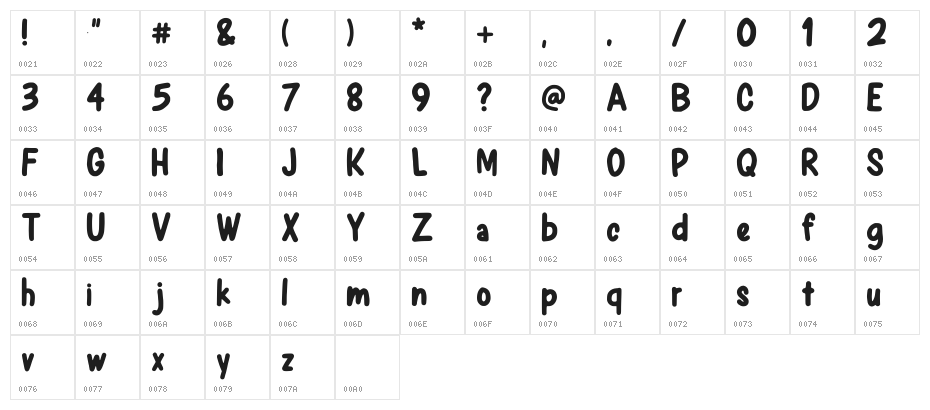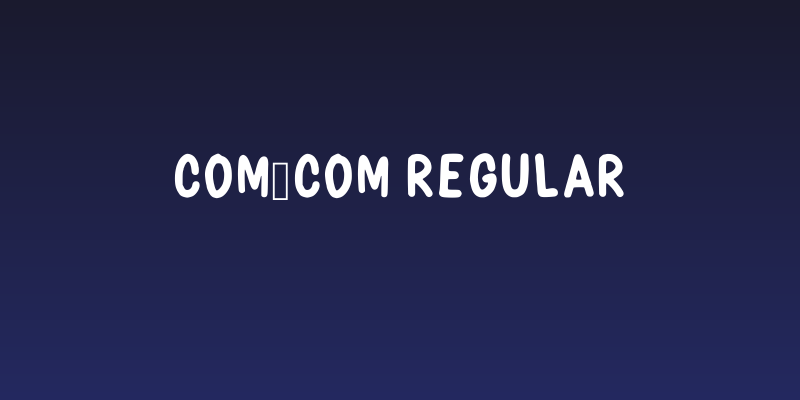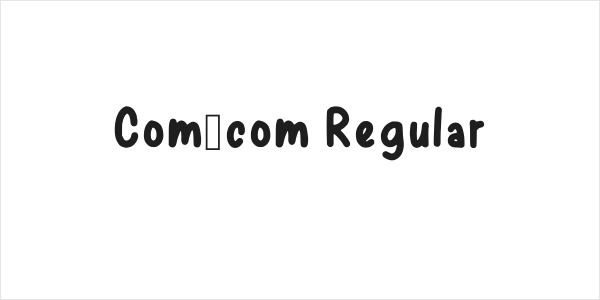
Com_com Regular Font
Com_com Regular Description
This playful and bold font features rounded, thick strokes that give it a friendly and approachable appearance. The characters are slightly irregular, adding a touch of whimsy and charm. Its boldness ensures high readability, making it suitable for various display purposes. The font's rounded edges and consistent stroke width contribute to its casual and informal style, perfect for projects that require a fun and lively touch. The numerals and special characters maintain the same playful aesthetic, ensuring a cohesive look across all text elements.
| Overall Style | Playful, Casual |
| Proposed Projects | Ideal for children's books, playful branding, posters, and social media graphics. |